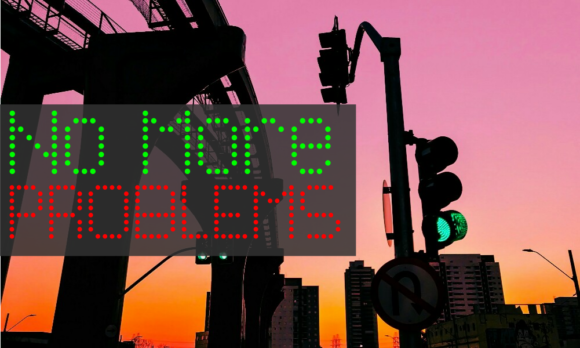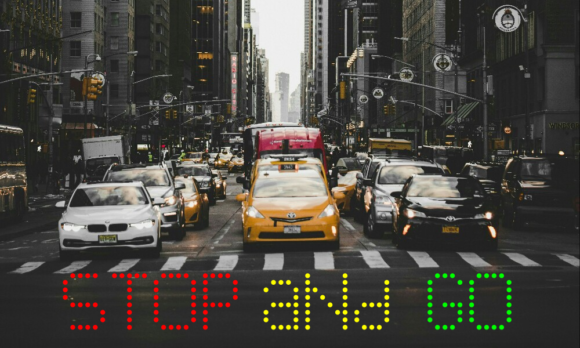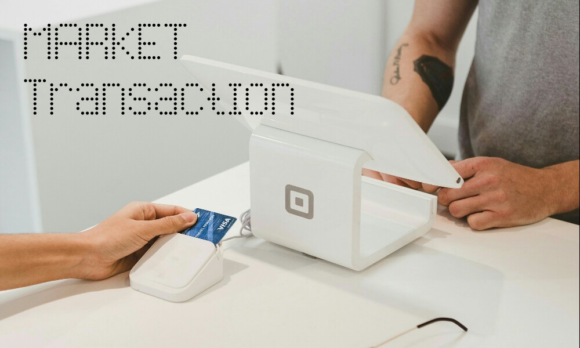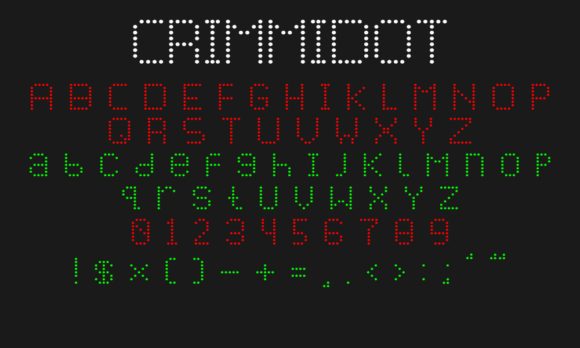
Introducing Crimmidot Font: Adding a Modern Mechanical Touch to Your Designs
Are you tired of using the same old fonts in your designs? Look no further than Crimmidot Font, a quirky and unique typeface that’s inspired by traffic lights, information boards, and receipts. This modern mechanical font is perfect for designers and crafters who want to add a touch of industrial chic to their work.
The Inspiration Behind Crimmidot
Crimmidot Font is the brainchild of a designer who was fascinated by the aesthetic of traffic lights, information boards, and receipts. These everyday objects often feature a distinctive, mechanized style that’s both functional and visually appealing. The designer sought to capture this essence and translate it into a font that would bring a fresh perspective to the world of typography.
What Makes Crimmidot So Special?
So, what sets Crimmidot Font apart from other fonts out there? Here are just a few of its standout features:
- Unique Character Set: Crimmidot Font features a unique character set that’s inspired by the digits and symbols found on traffic lights, information boards, and receipts. This means that you’ll have access to a wide range of characters that will add a touch of industrial flair to your designs.
- Modern Mechanical Feel: Crimmidot Font has a distinctly modern mechanical feel that’s perfect for designers who want to create work that’s sleek, sophisticated, and on-trend.
- Highly Versatile: Whether you’re working on a branding project, a website, or a craft project, Crimmidot Font is highly versatile and can be used in a wide range of applications.
How to Use Crimmidot Font in Your Designs
Ready to start using Crimmidot Font in your designs? Here are a few tips to get you started:
- Pair it with Other Fonts: Crimmidot Font works beautifully when paired with other fonts, especially sans-serif fonts. Try pairing it with a clean, minimalist font to create a striking contrast.
- Use it for Headings and Titles: Crimmidot Font is perfect for headings and titles, where its unique character set and modern mechanical feel can really shine.
- Experiment with Colors and Textures: Don’t be afraid to experiment with different colors and textures when using Crimmidot Font. Its industrial aesthetic lends itself well to bold, bright colors and rough textures.
Crimmidot Font for Crafters and DIY Enthusiasts
Crimmidot Font isn’t just for professional designers – it’s also perfect for crafters and DIY enthusiasts who want to add a personal touch to their projects. Here are a few ideas for using Crimmidot Font in your crafting and DIY projects:
- Custom Signs and Banners: Use Crimmidot Font to create custom signs and banners for your home or office. Its industrial aesthetic is perfect for a modern, edgy look.
- Handmade Cards and Invitations: Add a touch of personality to your handmade cards and invitations with Crimmidot Font. Its unique character set is sure to impress.
- DIY Packaging and Labels: Use Crimmidot Font to create custom packaging and labels for your products or gifts. Its modern mechanical feel is perfect for a professional, industrial look.
In conclusion, Crimmidot Font is a unique and versatile typeface that’s perfect for designers, crafters, and DIY enthusiasts who want to add a modern mechanical touch to their work. With its inspiration from traffic lights, information boards, and receipts, Crimmidot Font is sure to bring a fresh perspective to your designs. So why not give it a try and see what amazing projects you can create?